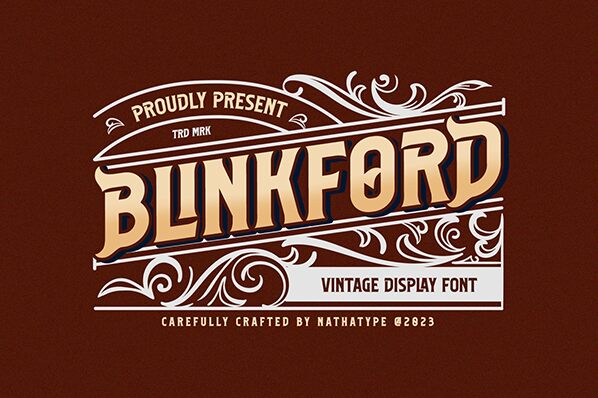
Blinkford font by Nathatype is a retro display typeface that beautifully encapsulates vintage charm with a strong, bold presence. Its geometric structure brings modern appeal while maintaining clear readability. Generously spaced characters ensure legibility and create an open, spacious feel that reflects the timeless elegance of classic typography.
This free display font is perfect for headlines, logos, posters, flyers, branding materials, print media, and editorial layouts. Explore its seamless adaptability across various projects to elevate your design’s impact with Blinkford's unique nostalgic allure.
Features:
- Stylistic Sets
- Ligatures
- Multilingual Support
- Numerals and Punctuation